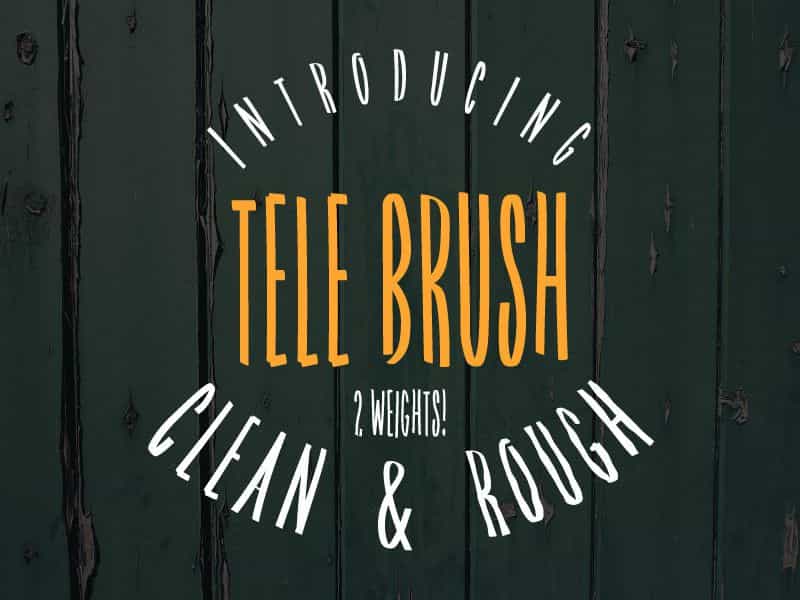
Discover Tele Brush Typeface, part of the Brush collection—a versatile and unique font perfect for adding a personal touch to your projects. Download it for free and enjoy crafting designs with style, from invitations to social media posts. This font is available exclusively for personal use, giving you the freedom to create without limits. Unlock your creativity with Tele Brush Typeface today!
Looking for a Good Condensed Brush Font? Keep Searching, cause this is very average!